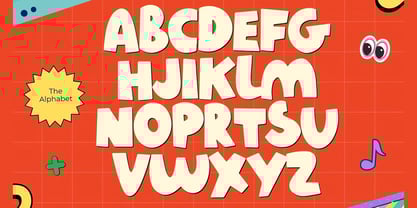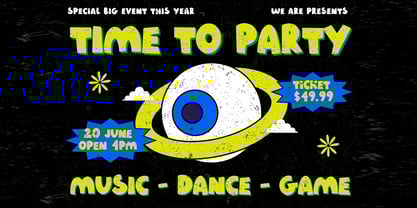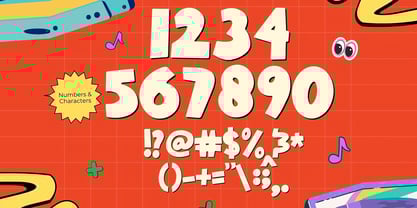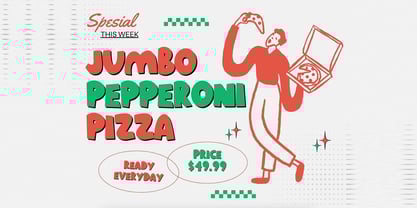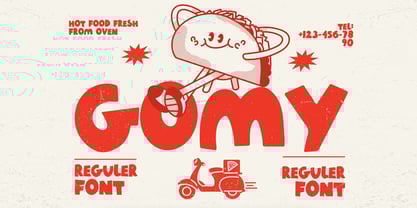
Gomy
by Maghrib Type
The Gomy Font Family was designed by Rizky Setyaludin and published by Maghrib Type. Gomy contains 1 styles. More about this family
Gomy Font is a playful handdrawn sans serif typeface designed to bring fun, energy, and friendliness into your designs. With its bold shapes, rounded edges, and slightly imperfect hand-drawn strokes, Gomy delivers a warm and cheerful personality that instantly catches attention. Inspired by retro cartoons, kids illustrations, and casual food branding, this font feels lively and approachable while remaining highly readable. Each character is carefully crafted to maintain balance and consistency, making it perfect for both display headlines and short text applications. Gomy Font includes uppercase letters, numbers, punctuation, and symbols, making it versatile for a wide range of creative projects. It works beautifully for children’s designs, posters, packaging, logos, stickers, social media content, games, and playful branding that needs a bold yet friendly voice. If you’re looking for a font that feels fun, expressive, and full of character, Gomy Font is a perfect choice to add joy and personality to your typography.